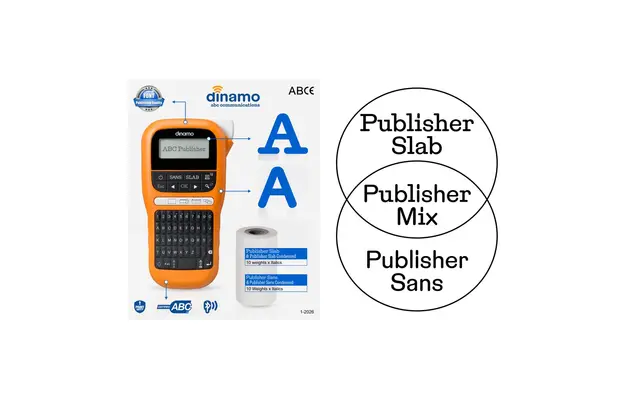
ABC Publisher
Dinamo Typefaces · Dinamo (Michelangelo Nigra, Fabian Harb, Marc Rouault)
ABC Publisher specimen from Dinamo Typefaces
A typewriter slab system with proportional spacing, paired with a Sans companion and a hybrid Mix, across normal and condensed widths in variable fonts.
A typewriter-inspired family by Dinamo (Michelangelo Nigra, Fabian Harb, Marc Rouault) re-upholstered for modern print and screen. Publisher embraces typewriter mechanical honesty and authorial voice while spacing letters proportionally for long reading. Three subfamilies share an underlying skeleton: a Slab (typewriter classic), a Sans companion, and a playful Mix that hybridises both, each in standard and Condensed widths across six weights with italics. Everything is delivered as variable fonts with fine-grained weight and width control. Engineering by Hugo Jourdan and Roberto Arista; campaign by Johannes Breyer and Melanie Schmidt.
Dinamo describe Publisher as a typewriter-inspired design, re-upholstered for modern print and screen use; tracing the typewriter genre to Courier and ITC American Typewriter, with proportional spacing for long reading.
Optical sizes and widths
Publisher Rounded SlabPublisher Rounded SansPublisher Rounded MixPublisher Rounded Slab CondensedPublisher Rounded Sans CondensedPublisher Rounded Mix Condensed
Family
Publisher Rounded SlabPublisher Rounded SansPublisher Rounded MixPublisher Rounded Slab CondensedPublisher Rounded Sans CondensedPublisher Rounded Mix Condensed